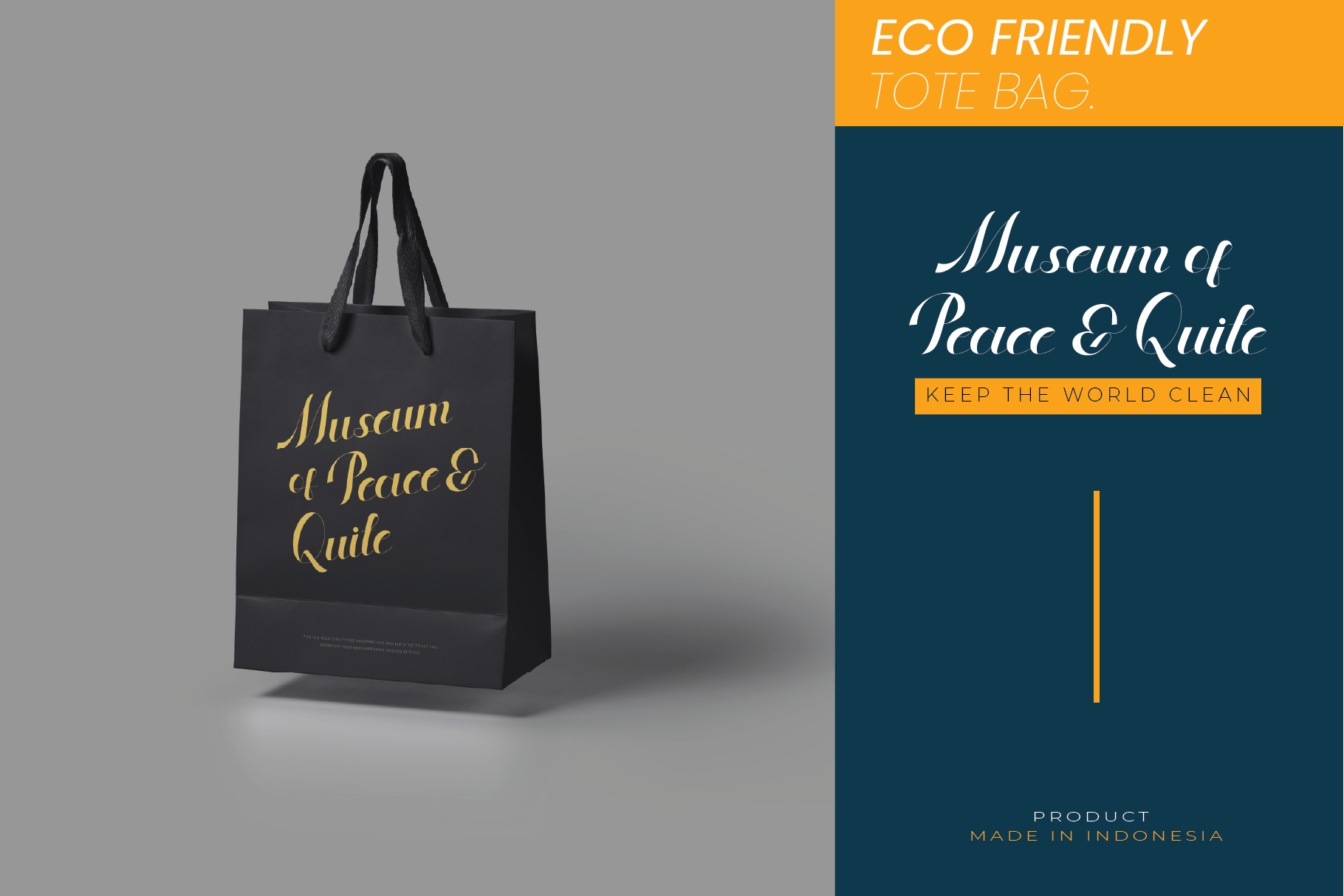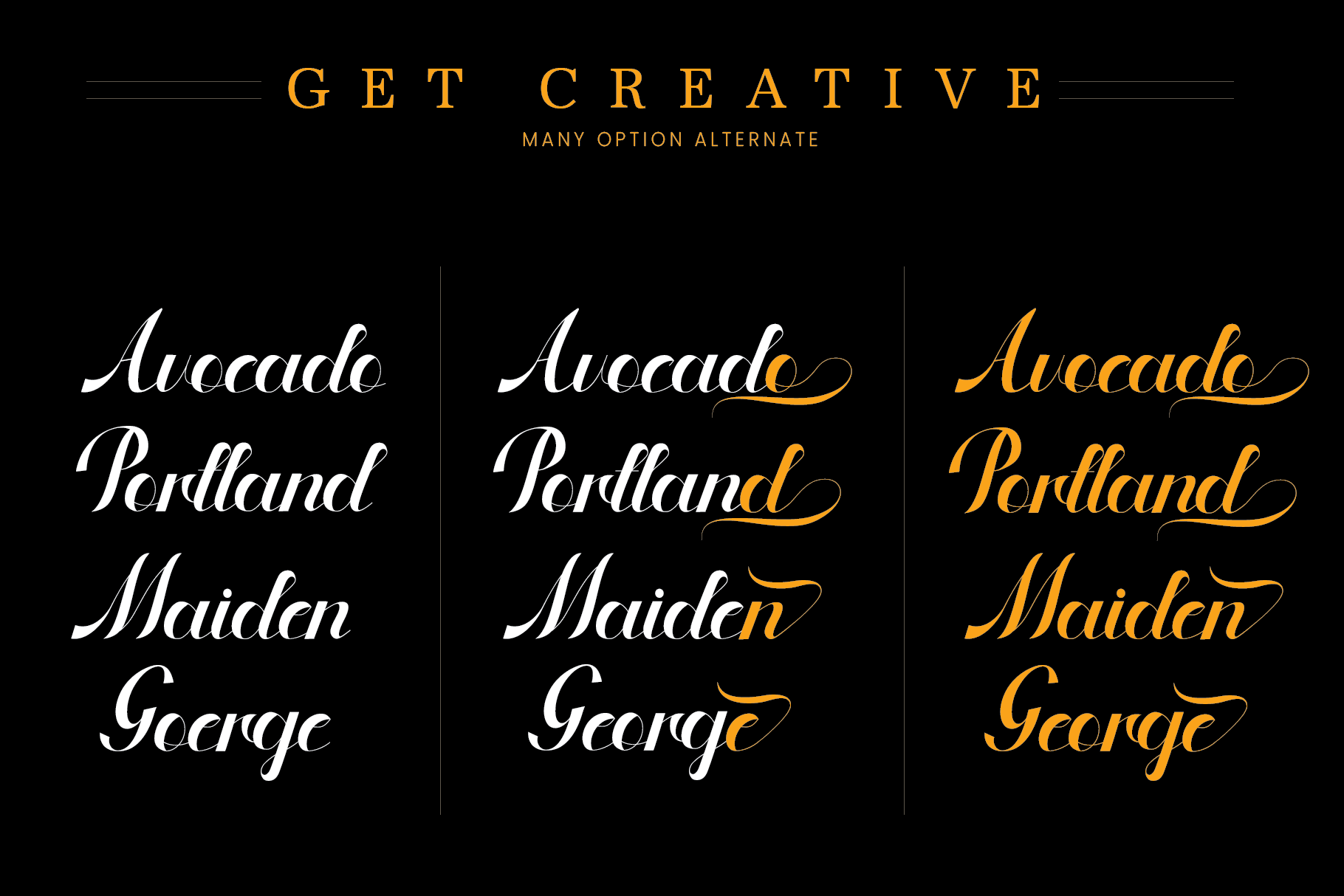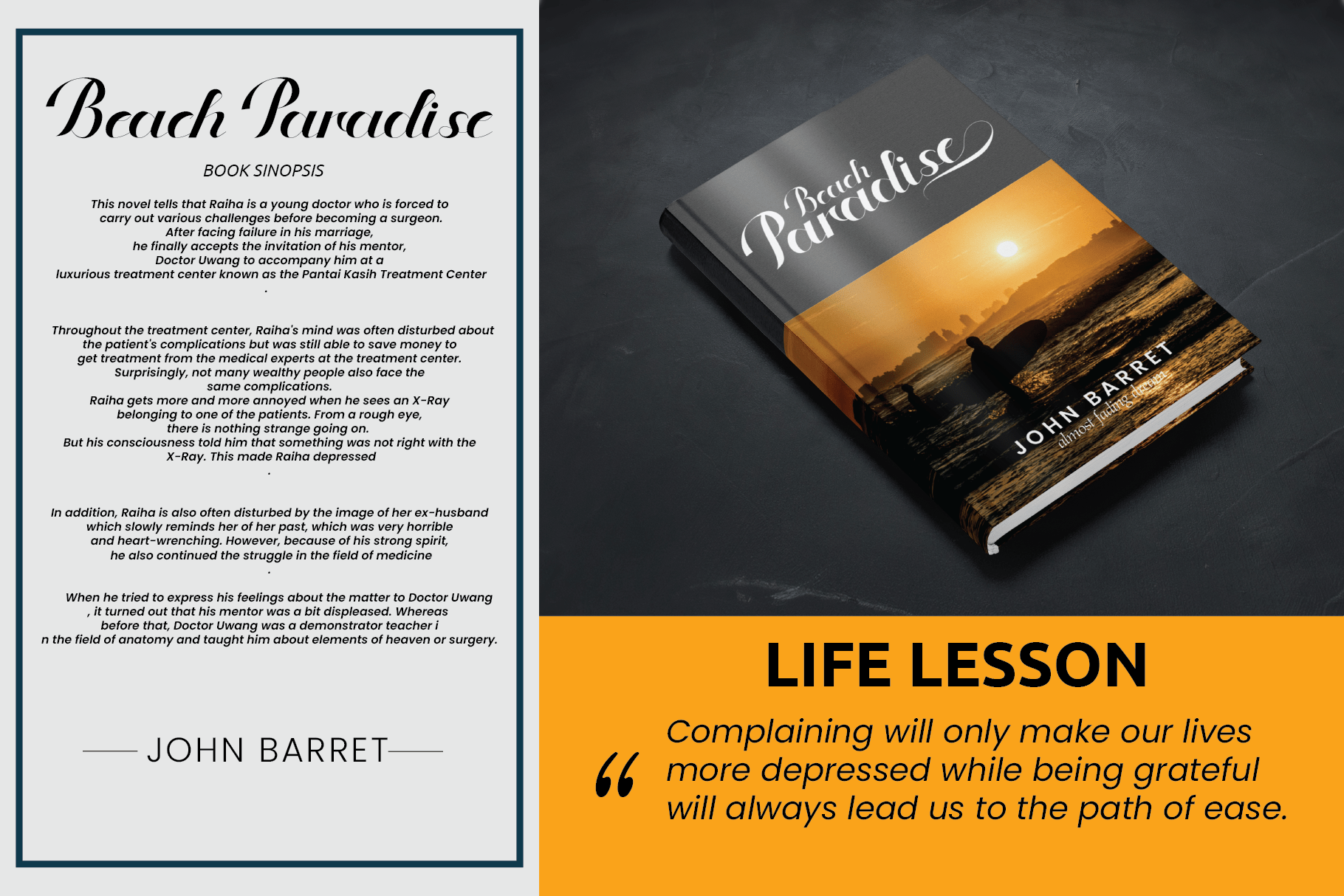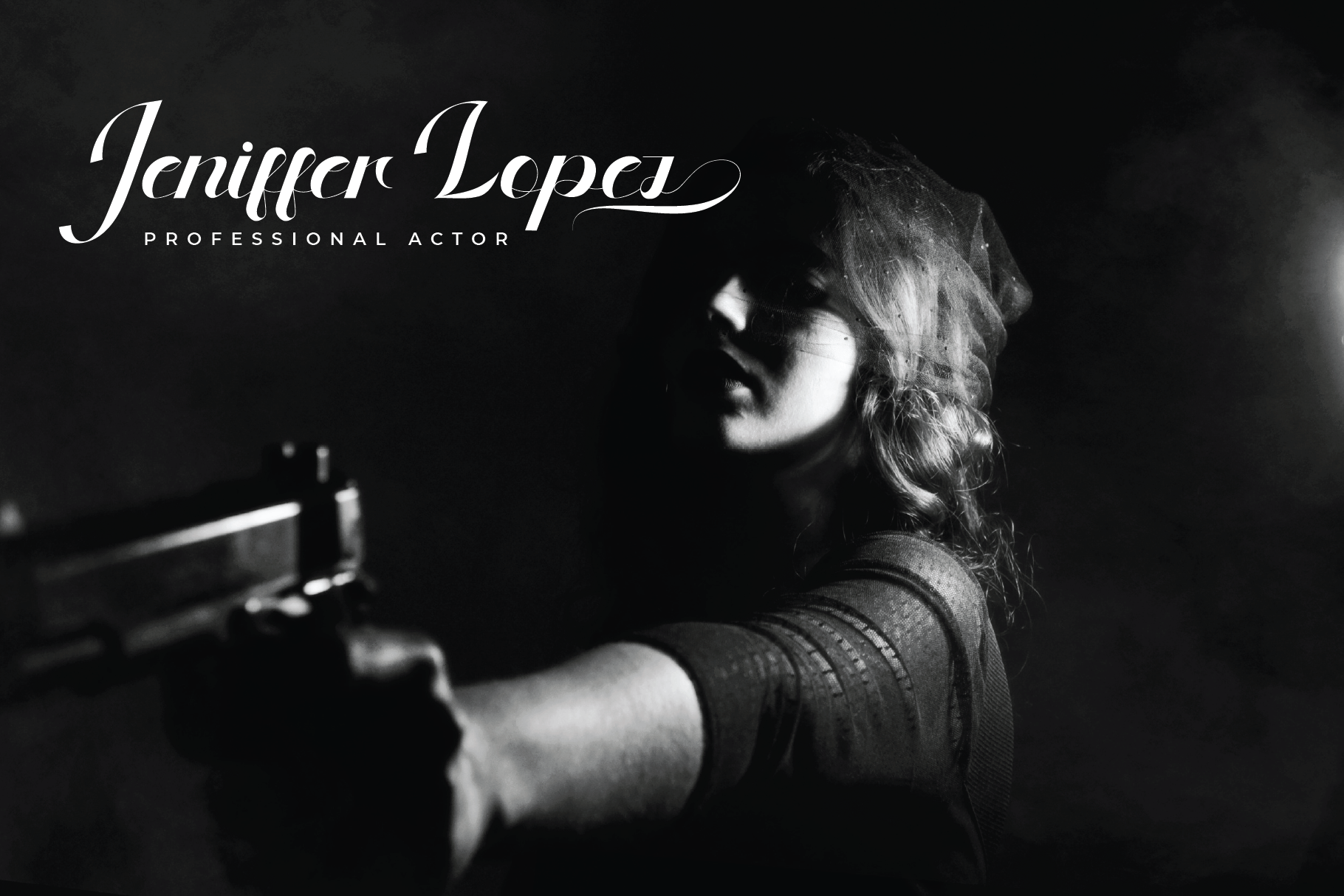
Micklona Font
Micklona Script Font
This is a Calligrapic font script with a stunning Elegant styles handcrafted from our Delaga Studio in Indonesia. Micklona Calligraphy Font is an original handwritten script typeface with a unique look. It has an amazing character set, perfectly managed with good spacing and kerning. The style of this font theme is elegant, sophisticated
Micklona Font has a stunning calligraphic character style. The font will be great for any project (with an extended license) including: branding, logos, stationery, business cards, signage, flyers, brochures, etc. Almost any industry will suit this typeface: weddings, events, real estate, architects, florists, gardening, makeup artists, travel, hotels, musicians etc.